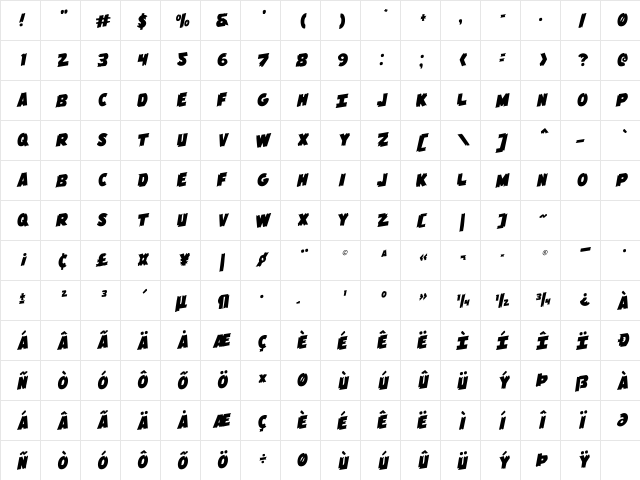
Flying Leatherneck Rotate Regular
Design Context for Flying Leatherneck Rotate
Flying Leatherneck Rotate is a composed and adaptable typeface that performs quietly and consistently across a wide range of design contexts.
Pro Tip: Use Flying Leatherneck Rotate in both headline and body roles to test its range before committing to a single application.